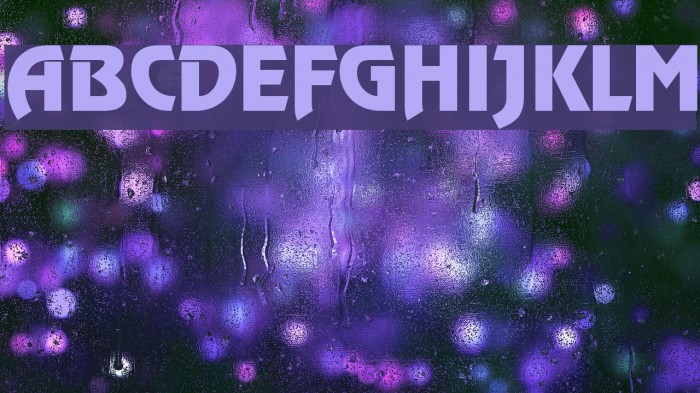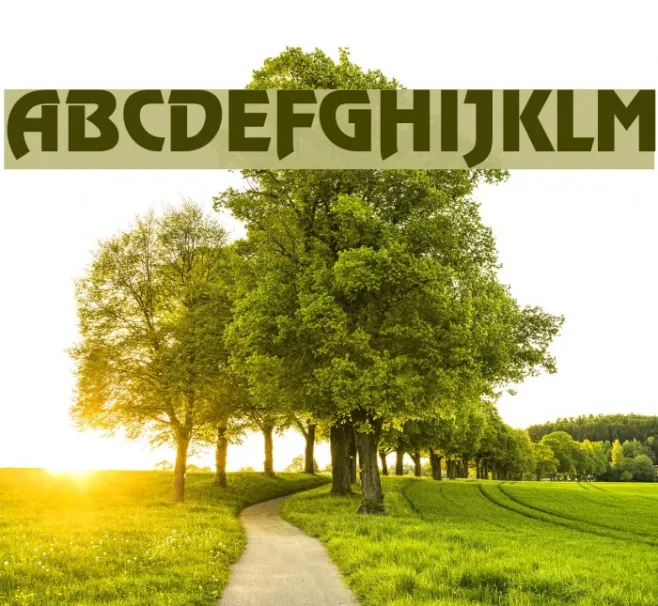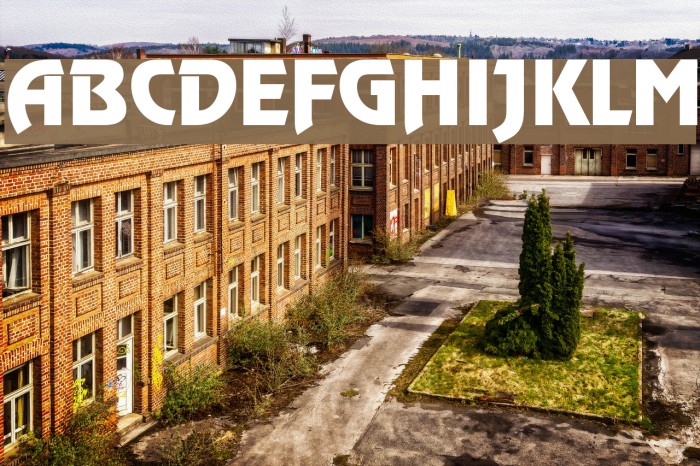
Renfrew Font
Renfrew Description
This font features a bold and assertive style with angular, geometric shapes that give it a strong, impactful presence. The uppercase letters are particularly striking, with sharp edges and a slightly condensed form that emphasizes their boldness. The lowercase letters maintain a consistent weight, providing a harmonious balance between the two cases. Numbers and special characters are equally robust, ensuring clarity and readability. The overall design is modern and dynamic, making it suitable for projects that require a strong visual statement.